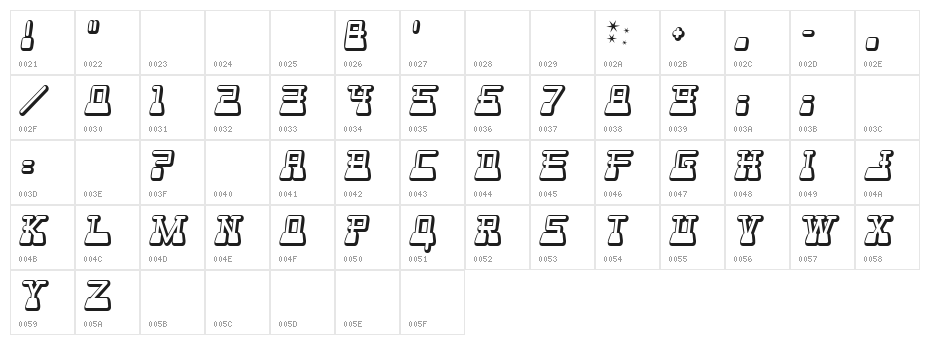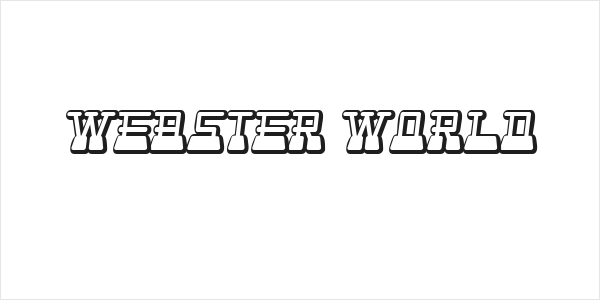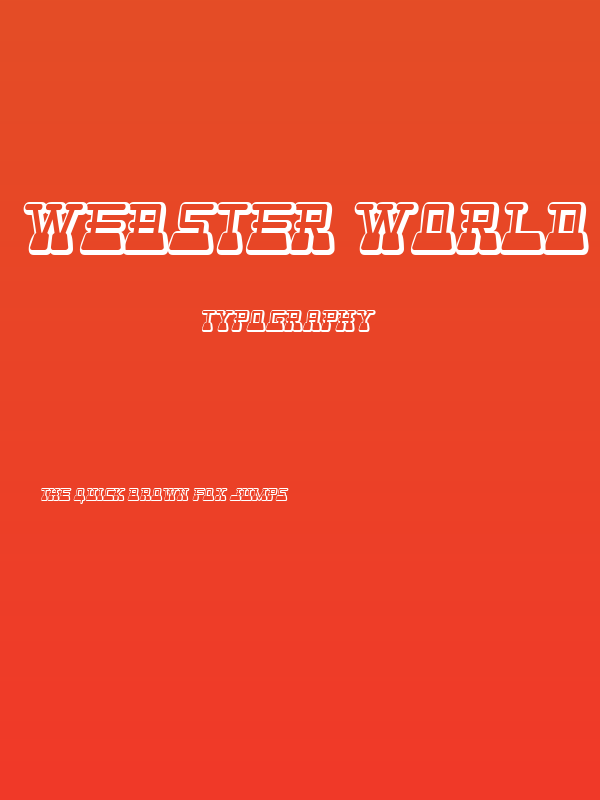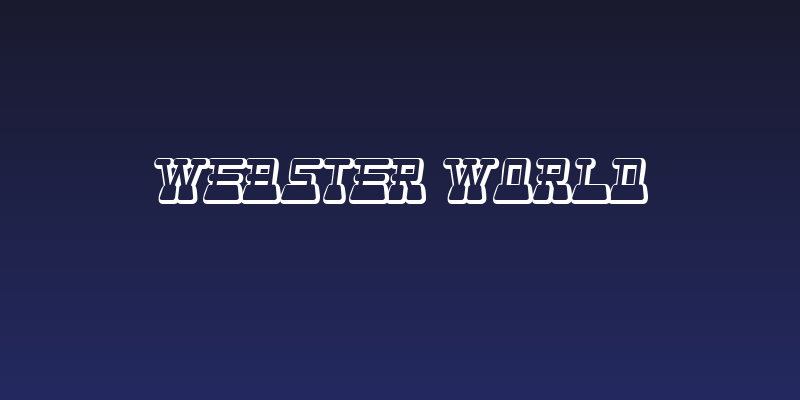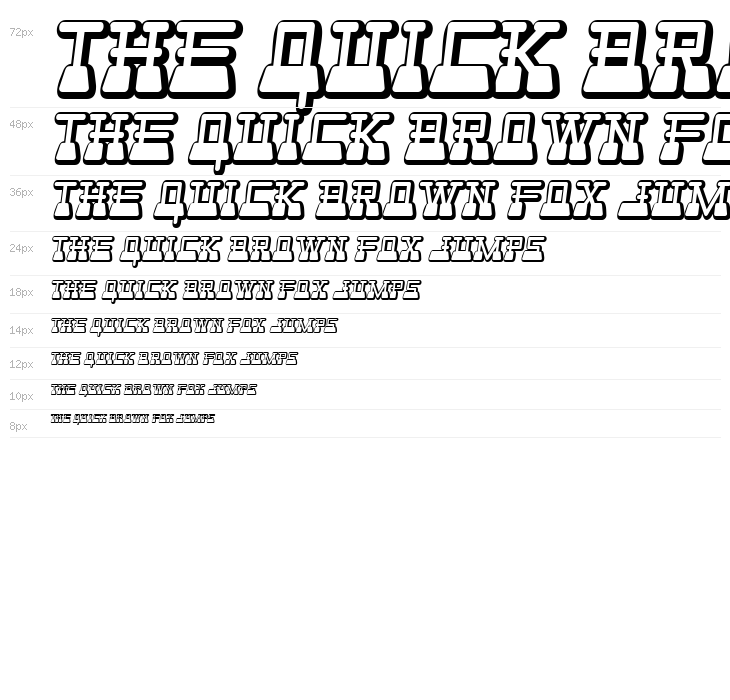
Webster World Font
Webster World Description
This font features a bold, three-dimensional style with a strong outline that gives each character a shadowed effect. The uppercase letters are blocky and geometric, creating a sense of depth and solidity. The lowercase letters maintain the same structural integrity, ensuring consistency throughout. Numbers and special characters follow the same design principles, making them stand out with their bold and impactful appearance. The overall look is modern and playful, suitable for projects that require a dynamic and eye-catching typeface.
| Proposed Projects | Ideal for posters, headlines, logos, and any design needing a striking, modern typeface. |